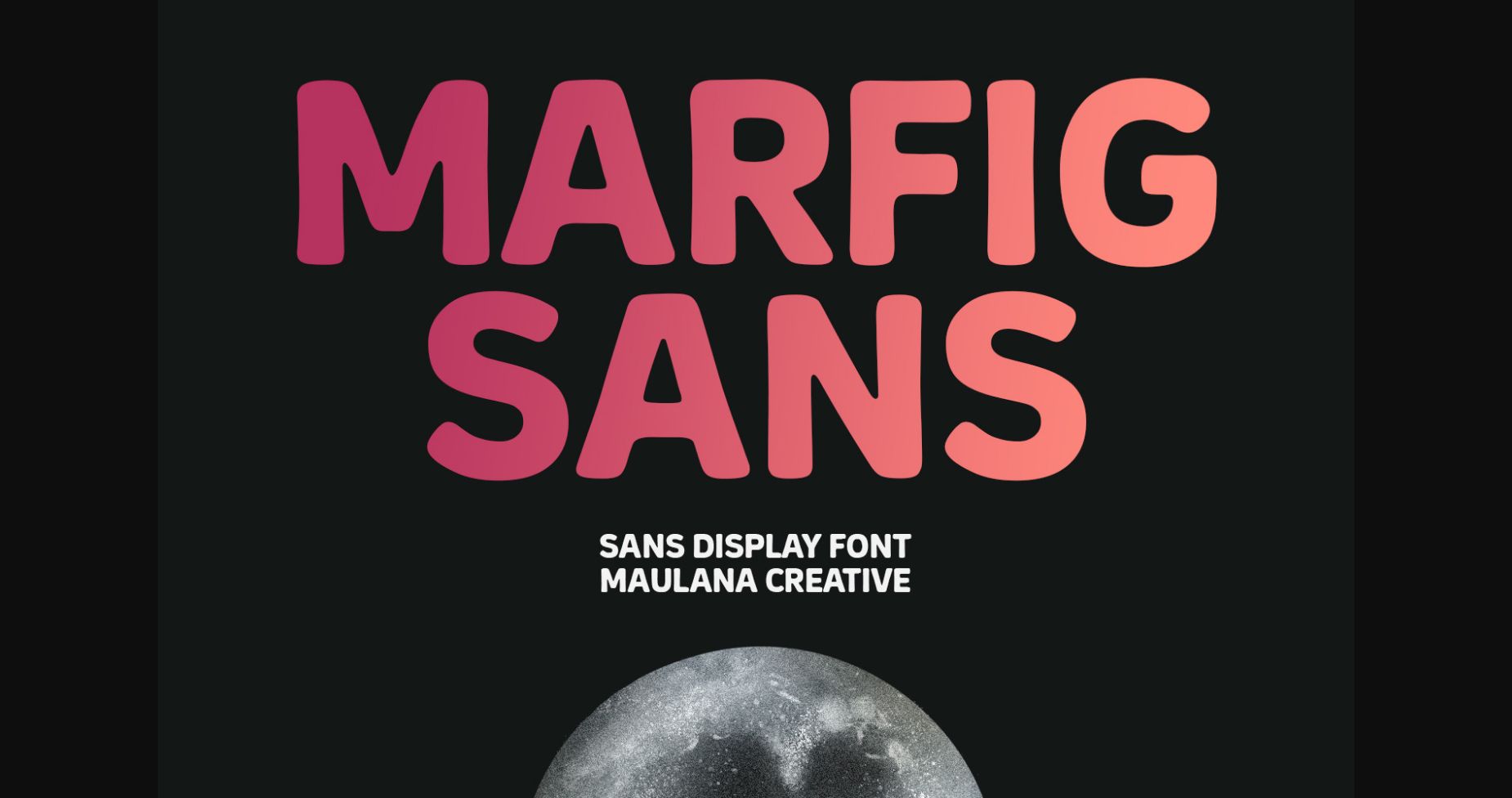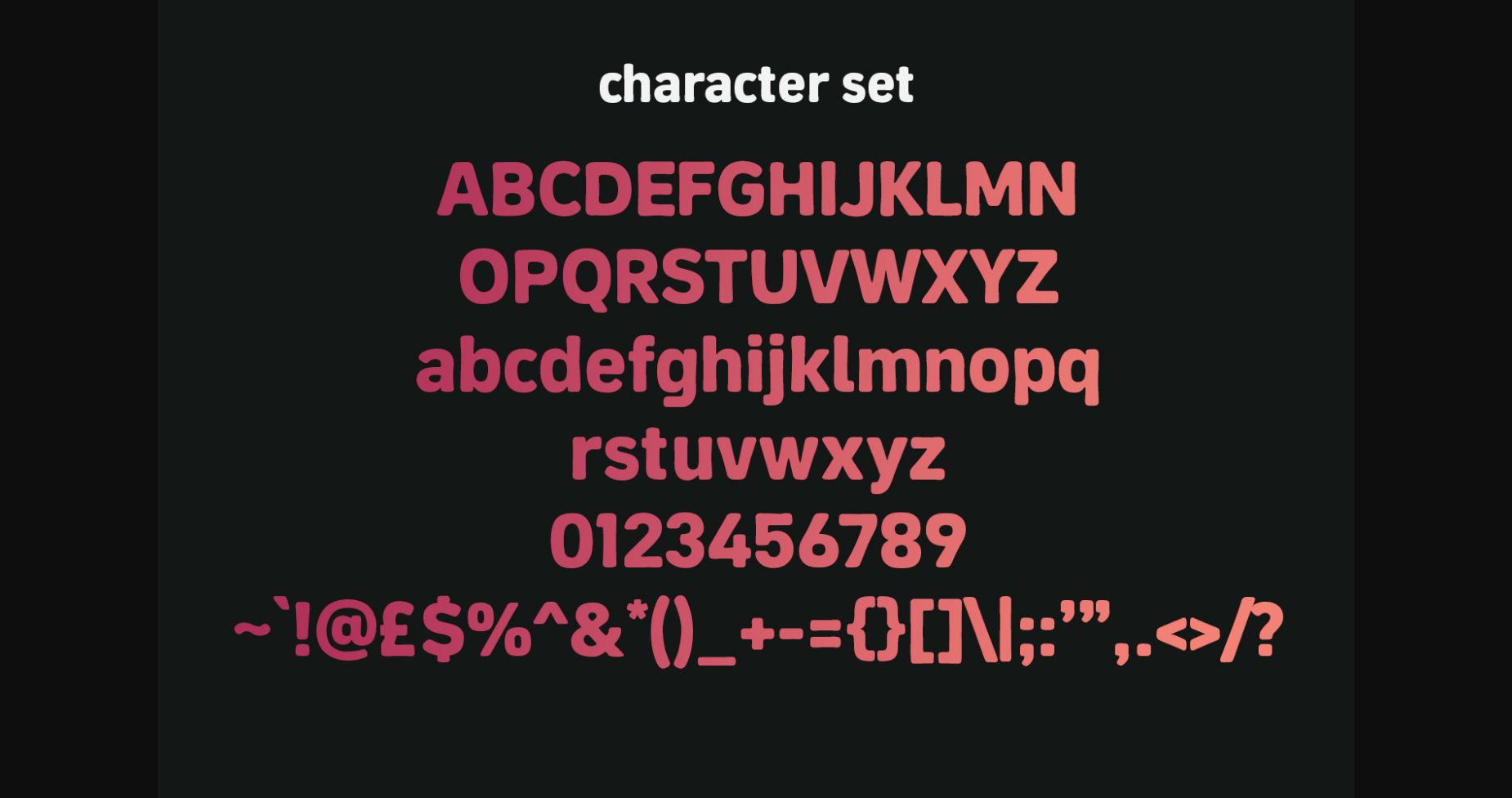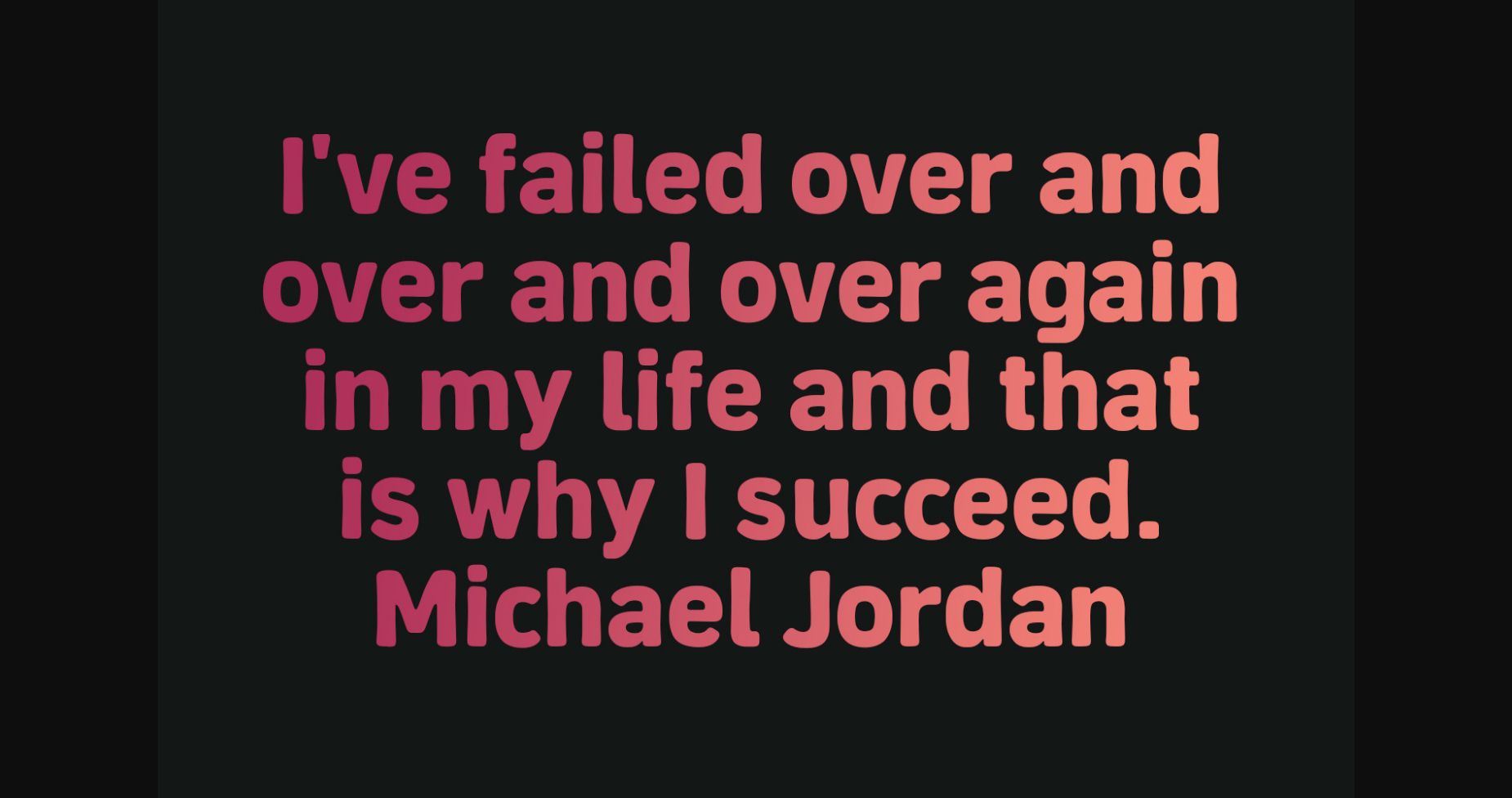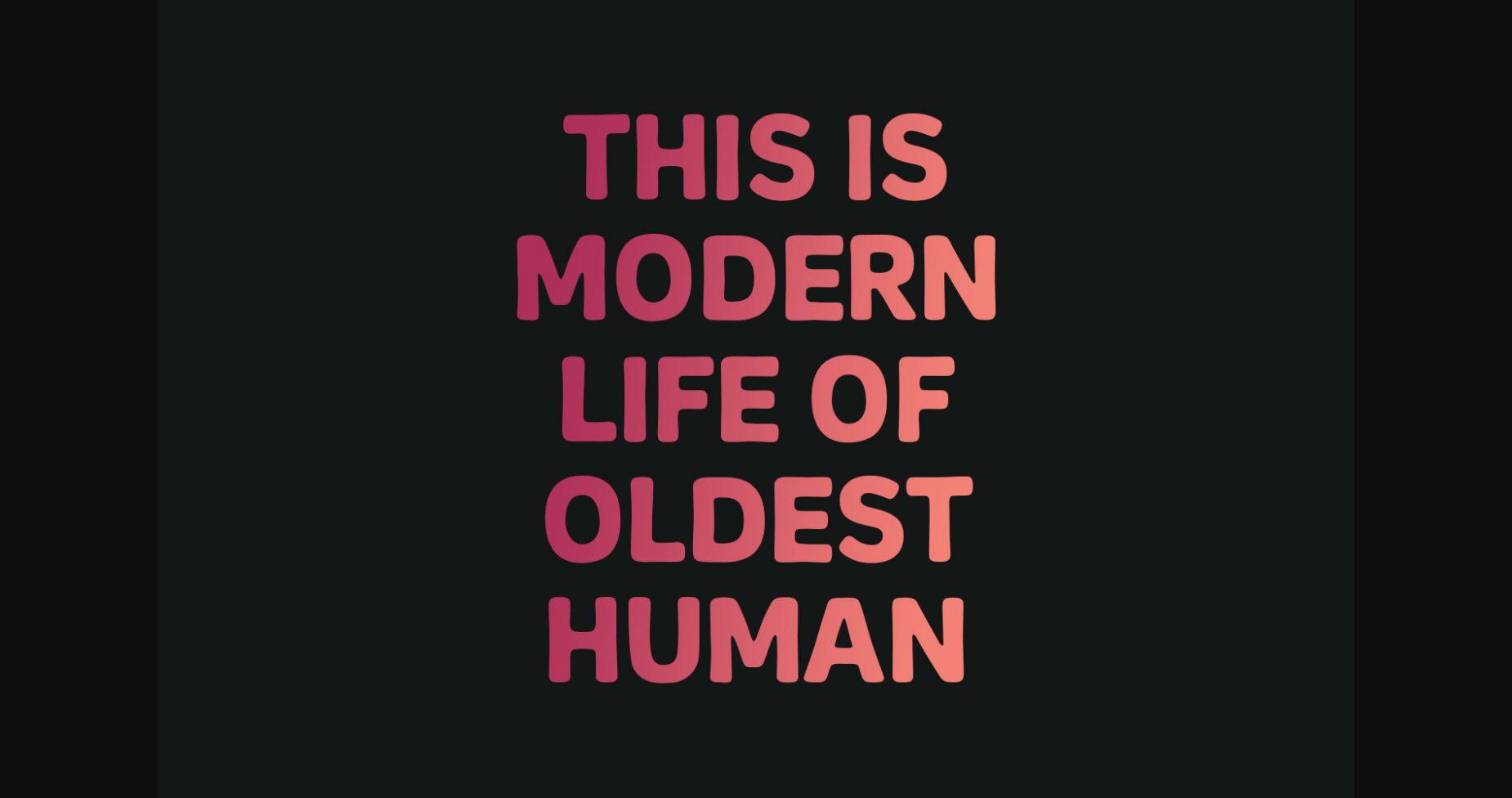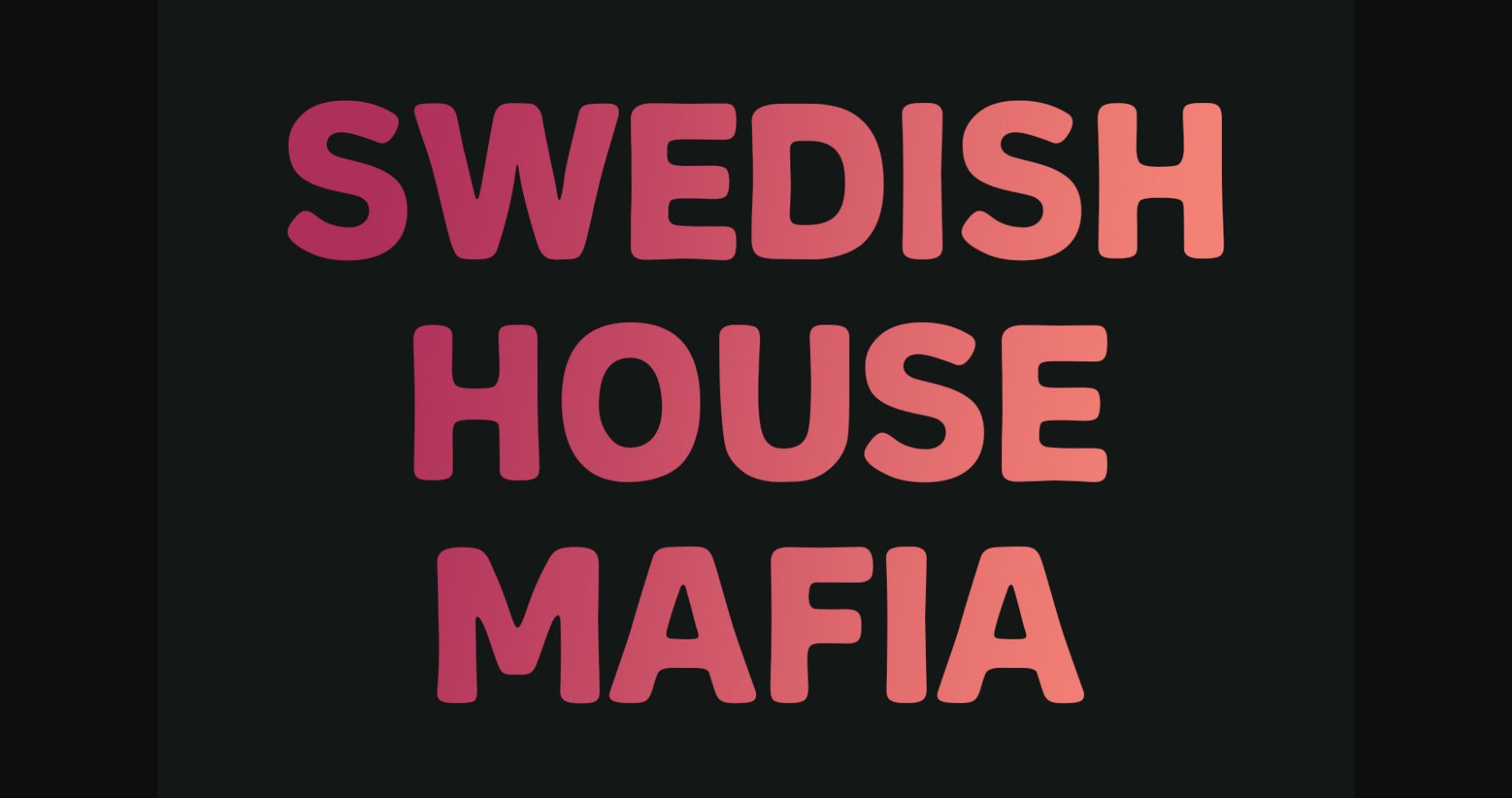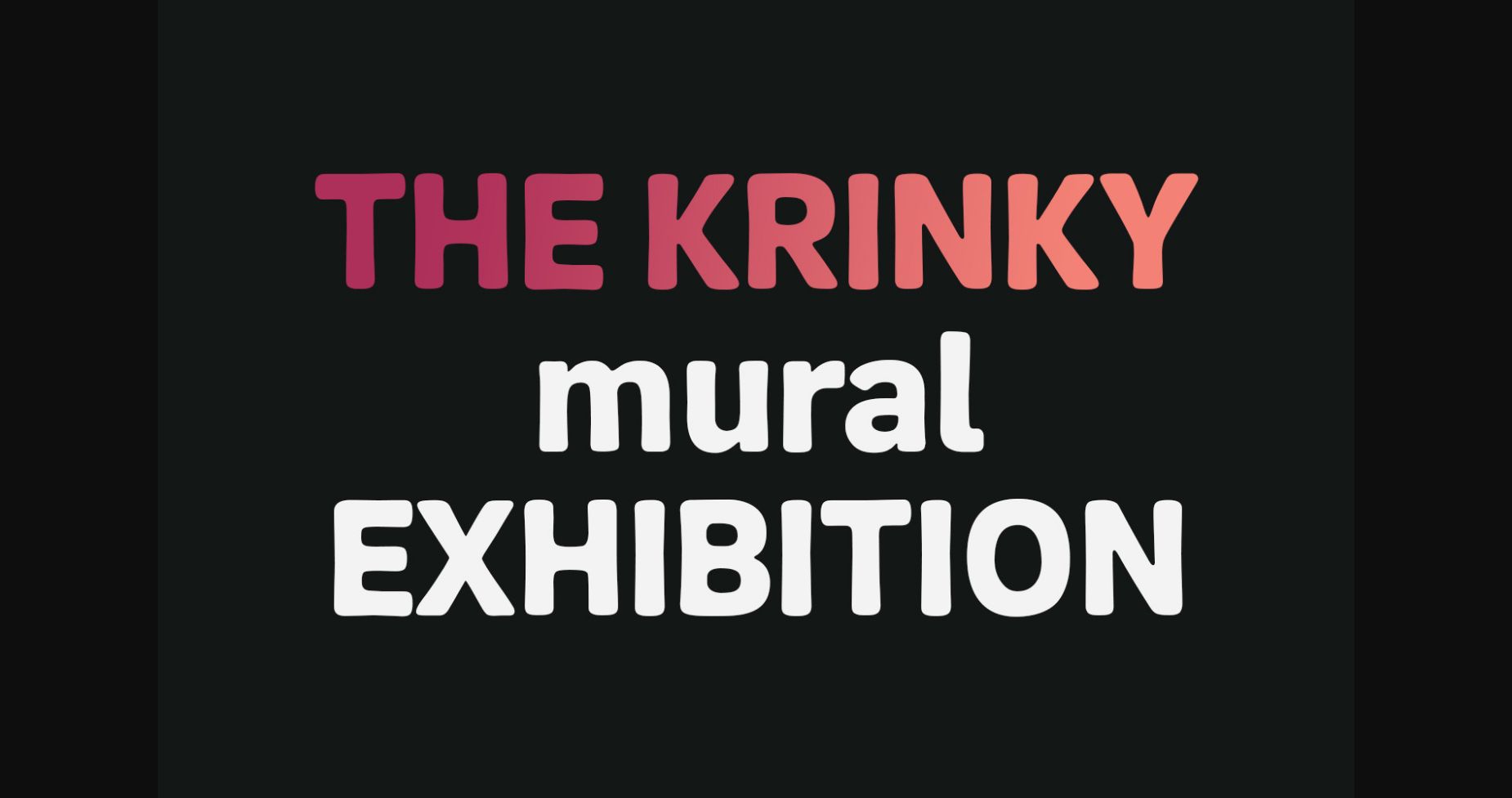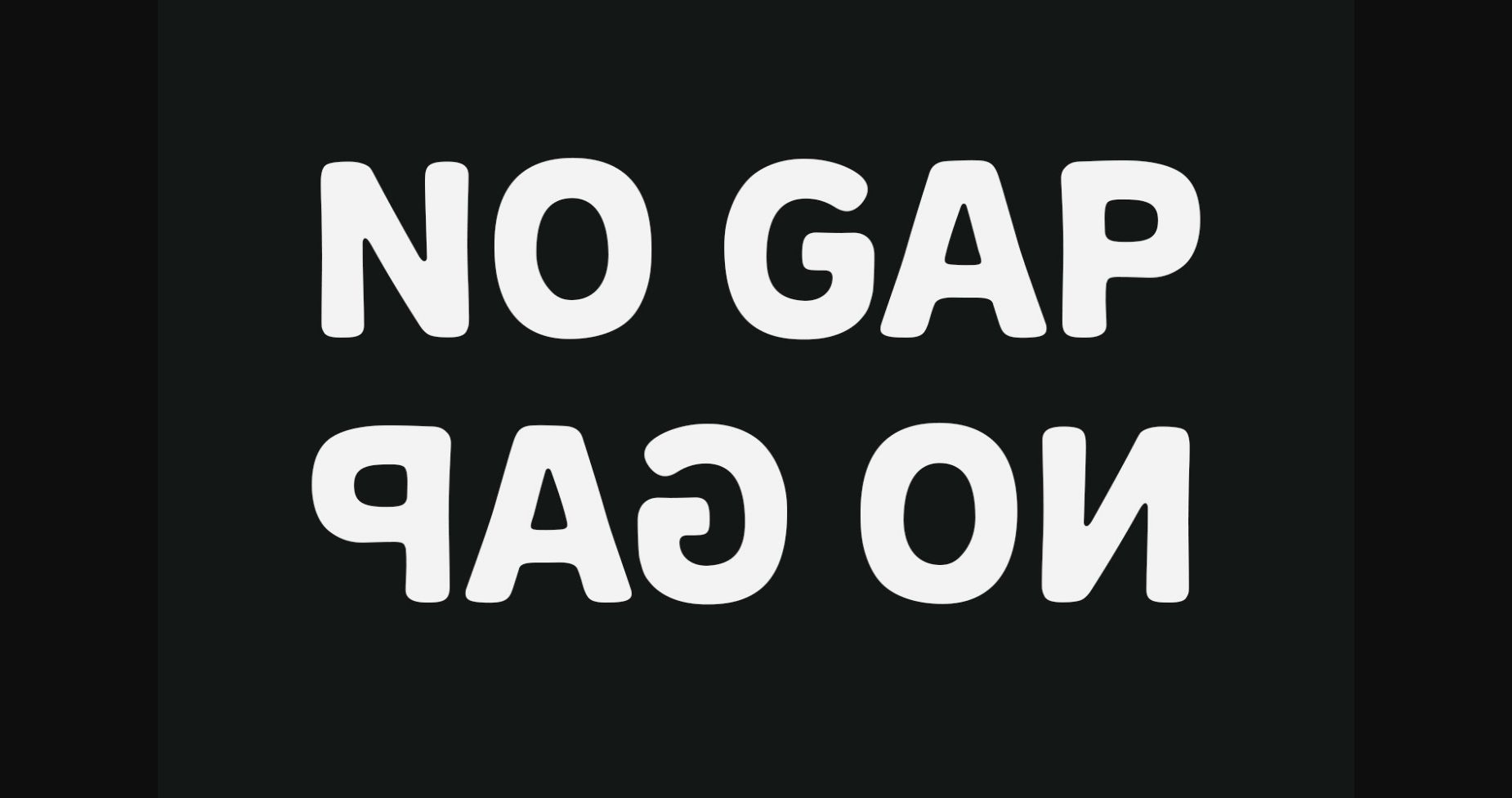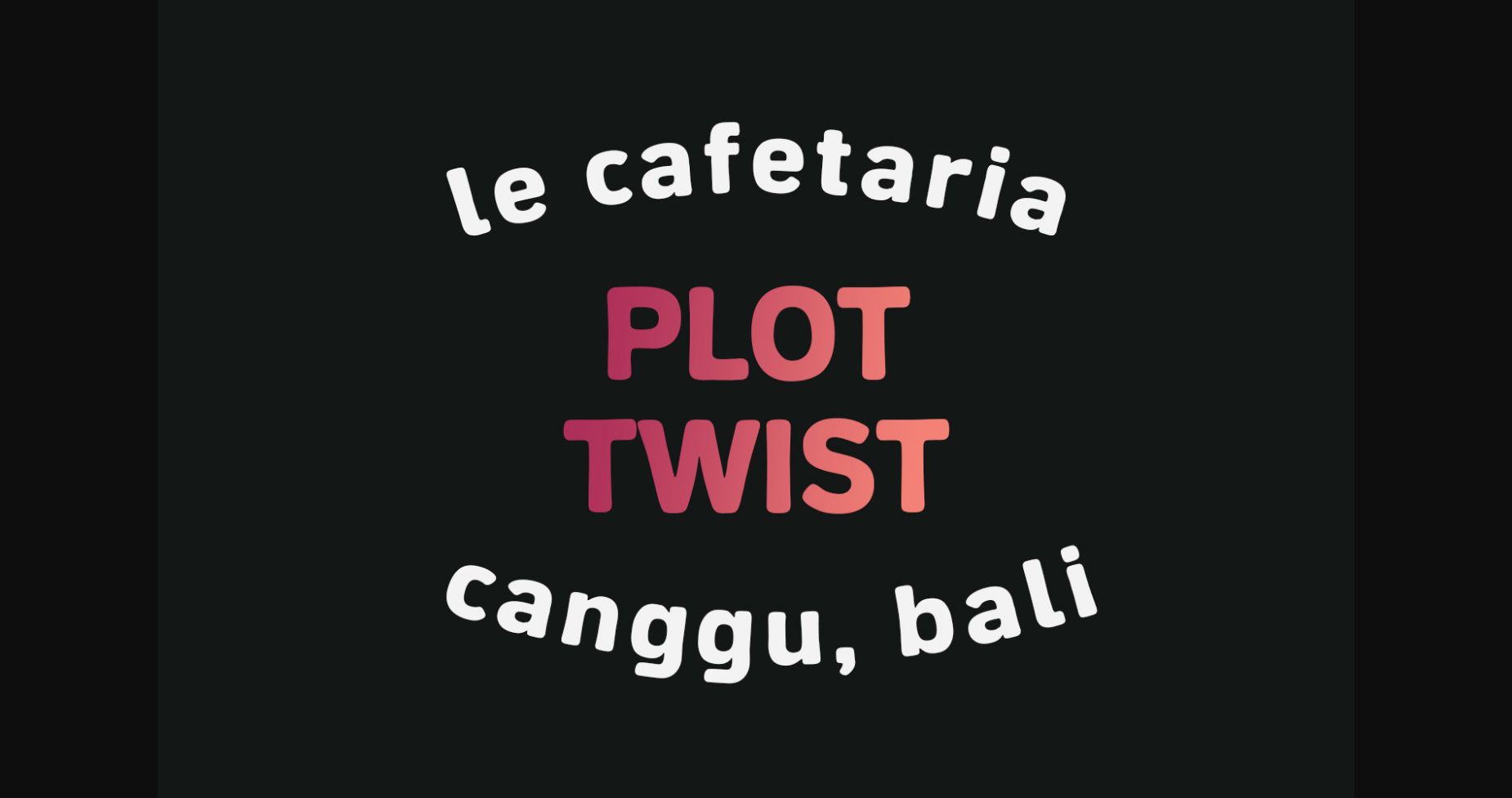
Marfig is a modern and cool sans serif font. No matter the topic, this font will be an incredible asset to your fonts’ library, as it has the potential to elevate any creation.